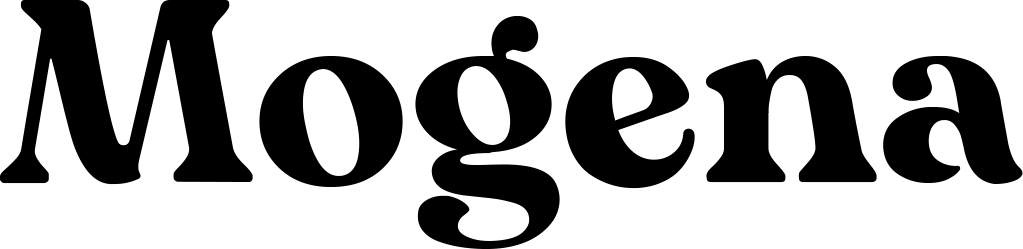
Mogena Font
Display your magnificent typography with Mogena which is an outstanding serif font. The unique design of the professional characters gives a fashionable feel that will be honored by all the observers no matter where it’s carried out.
The confidence provided by Mogena makes it a worthy font that is eligible for magazines, posters, cosmetics, branding, and more. You can count on this stunning retro font and your typography will shine, by enhancing the letterforms even though it doesn’t contain punctuations.